Some brands want to feel new and cutting-edge, others want to feel like they’ve been around forever, trusted, established, and full of history. That’s where classic and vintage serif fonts come in. With their traditional structure and old-world charm, these fonts bring instant credibility and warmth to any design.
Here are 5 fonts from Artisan Font to help you build that timeless, established look.
1. Laghino
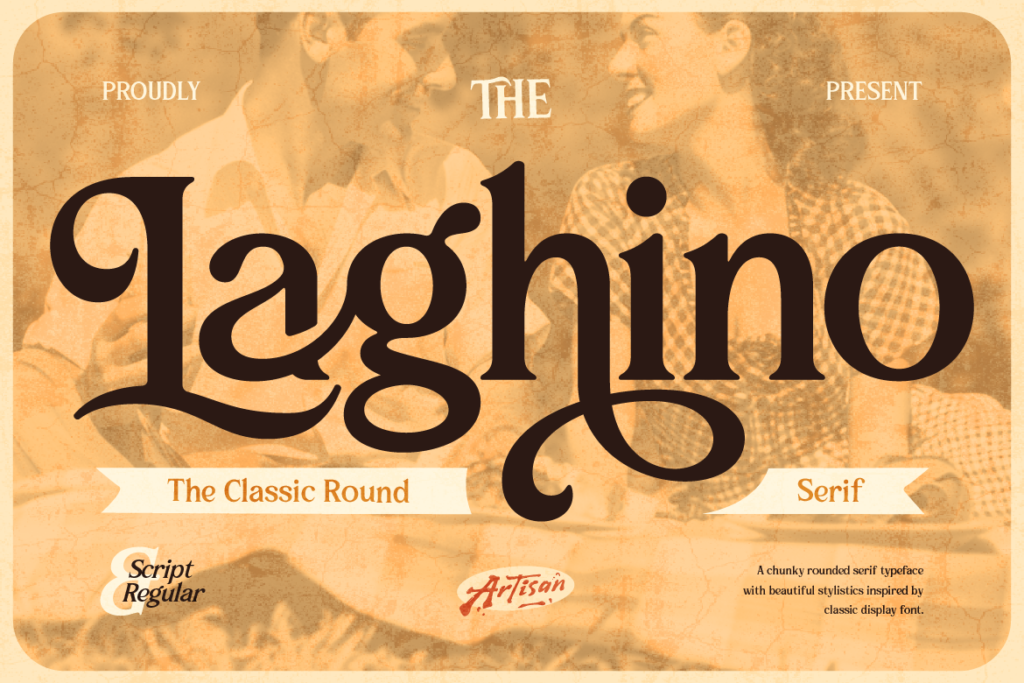
Laghino is a classic round serif font with soft, rounded terminals that give it a warm, approachable elegance. It keeps that traditional serif structure while still feeling friendly and easy to read.
Great for: editorial branding, book covers, and any project that wants a classic touch without feeling stiff.
2. Veltcon
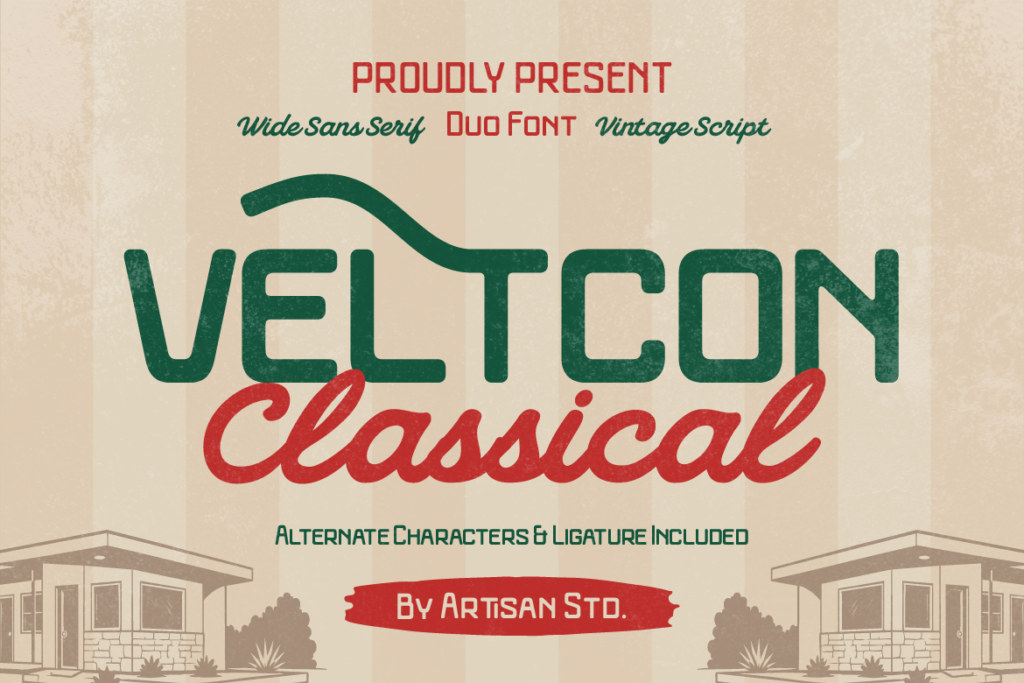
Veltcon is a classical serif font with refined, elegant detailing and beautiful ligatures. It’s the kind of font that instantly elevates a design, perfect for anything wanting a polished, established feel.
Great for: luxury branding, invitations, and premium packaging design.
3. Reblade
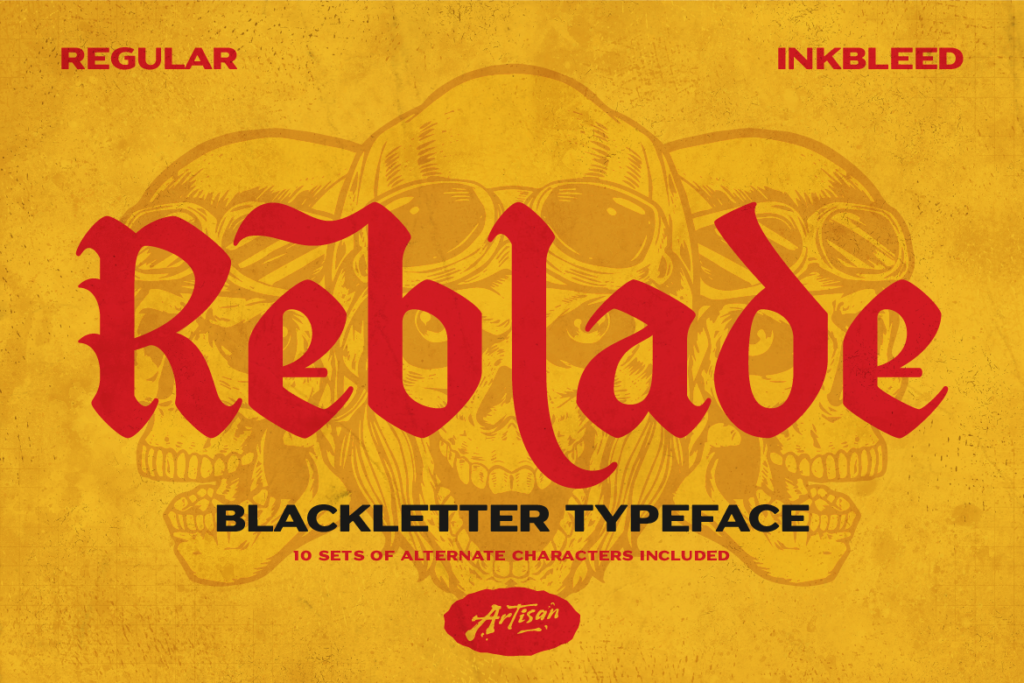
Reblade is a blackletter typeface that leans into dramatic, historic charm. Bold and ornate, it brings serious old-world gravitas to any project that wants to feel weighty and traditional.
Great for: heritage branding, certificates, and bold vintage-style headlines.
4. Foramte
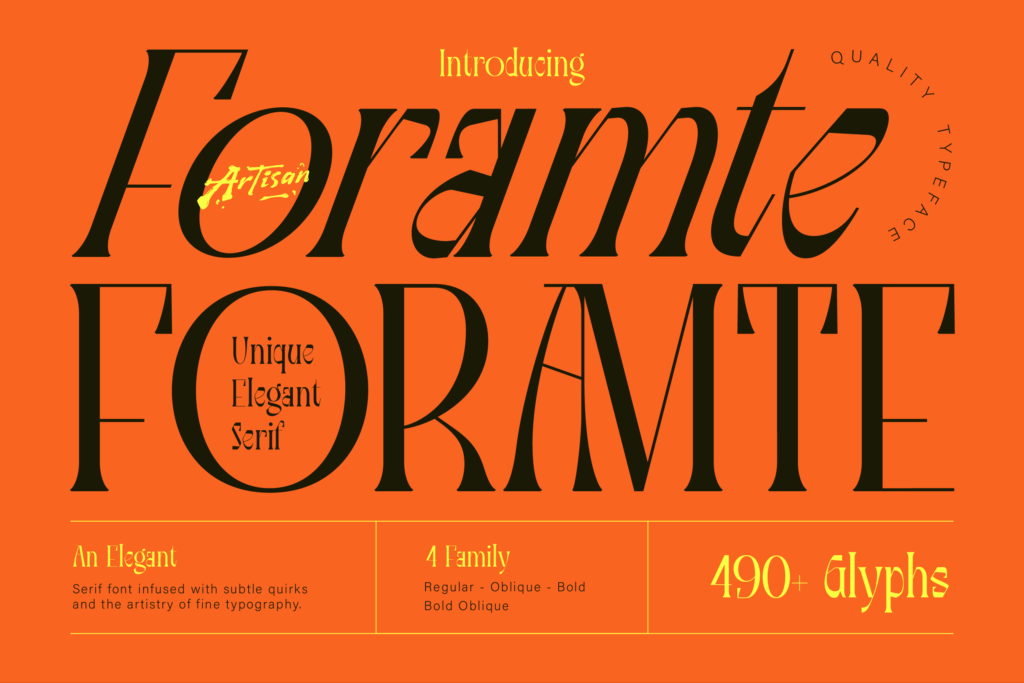
Foramte is a vintage elegant font packed with detail, coming with 400 glyphs for maximum flexibility. Its refined serif structure feels timeless and sophisticated, ideal for brands wanting a classic, storied feel.
Great for: editorial design, wine and spirits branding, and elegant packaging.
5. Djayanti
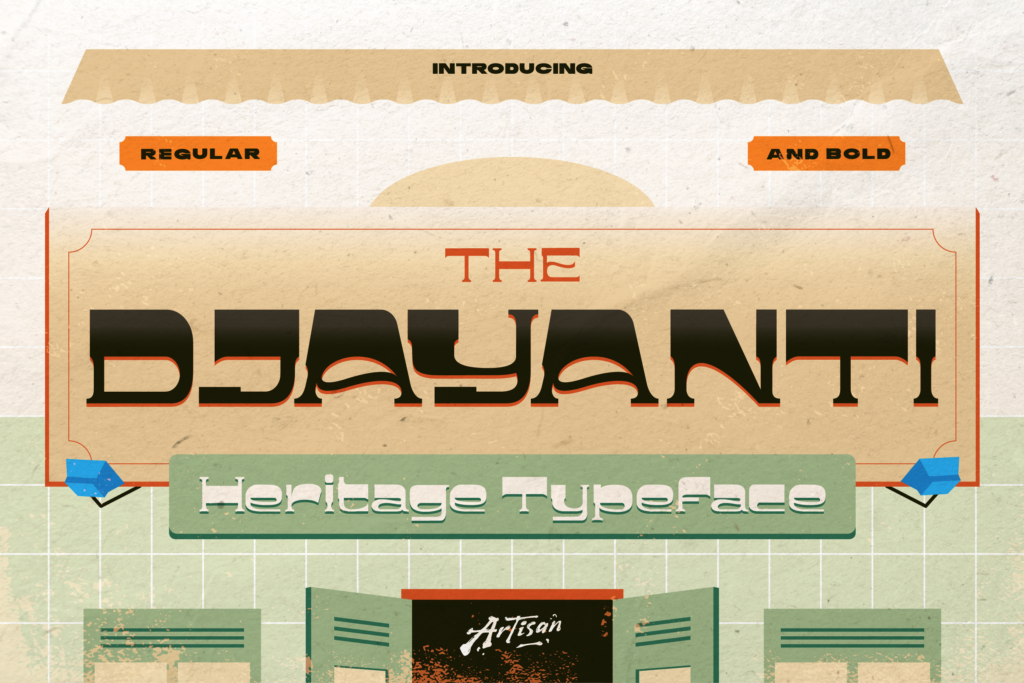
Djayanti is a vintage typeface with a hand-signage quality, the kind of lettering you’d find on an old storefront or a well-worn label. It brings authentic, lived-in character to your design.
Great for: vintage branding, product labels, and nostalgic packaging design.
Build Something Timeless